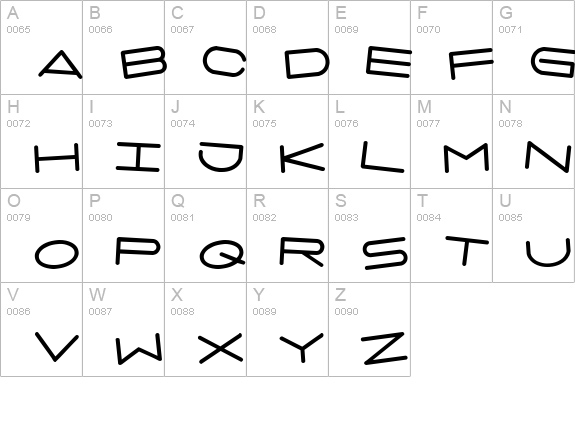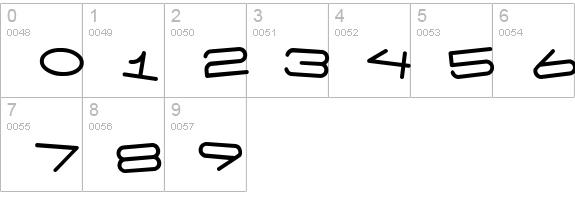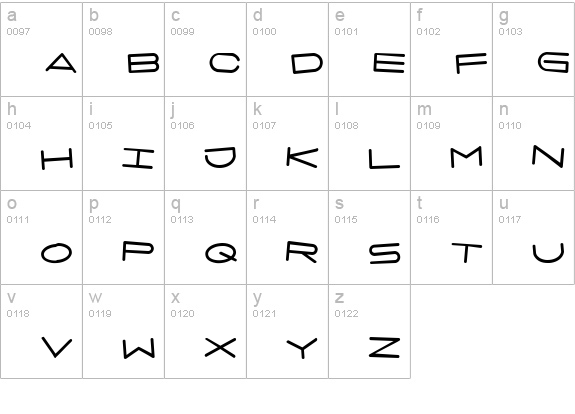
7 days rotated Font Details
Introducing the captivating 7 Days Rotated font, a unique and modern typeface that will bring a fresh and dynamic look to your designs. This font features a playful rotation of characters, adding an intriguing twist to your text. The 7 Days Rotated font is perfect for adding a touch of creativity to various projects, from branding and advertising to social media graphics and more. What makes this font even more appealing is that it is available for free download at FontsMarket.com. Yes, you read that right - you can freely access this stylish font and start using it in your designs without any cost. Don't miss out on this fantastic opportunity to elevate your projects with the eye-catching 7 Days Rotated font. Download it now and let your creativity shine!